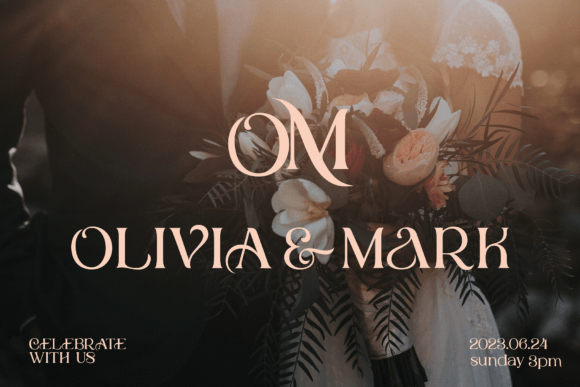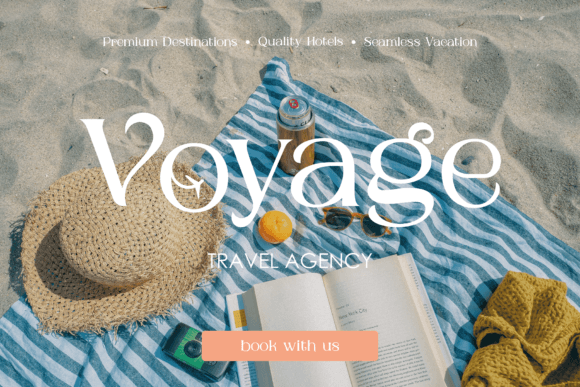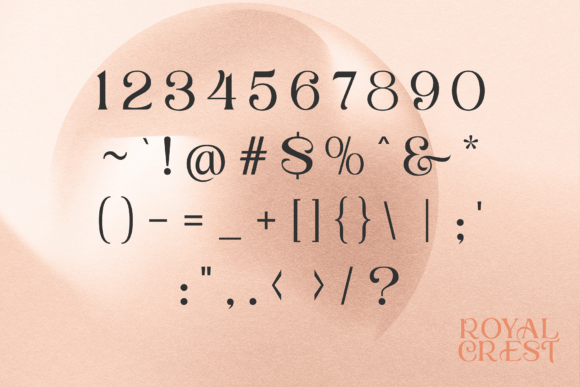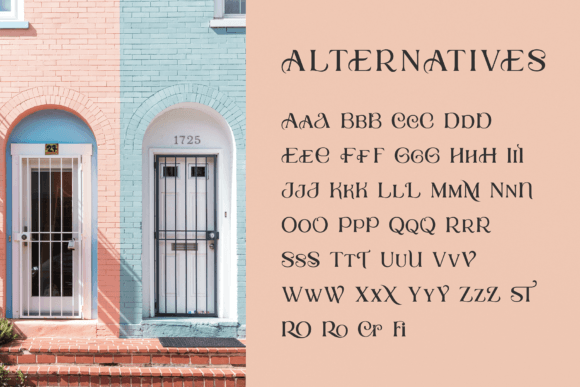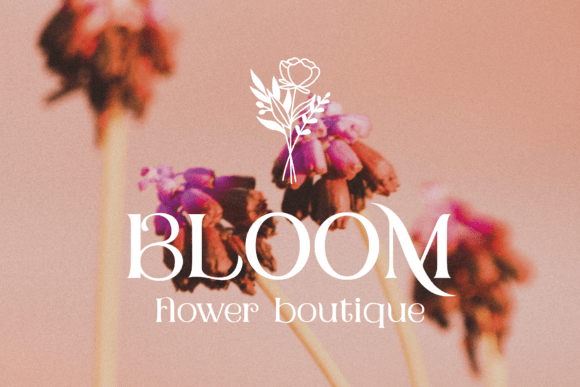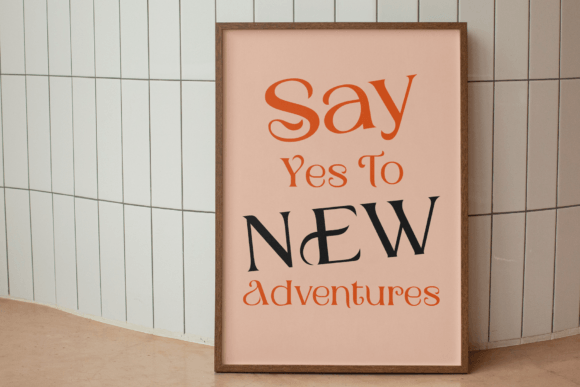
Introduction to Royal Crest Font
Royal Crest is an exquisite serif typeface that exudes elegance and modernity.
Its beautifully designed characters are ornate and decorative, making it perfect for high-end design projects that require a touch of luxury .
Key Features of Royal Crest Font